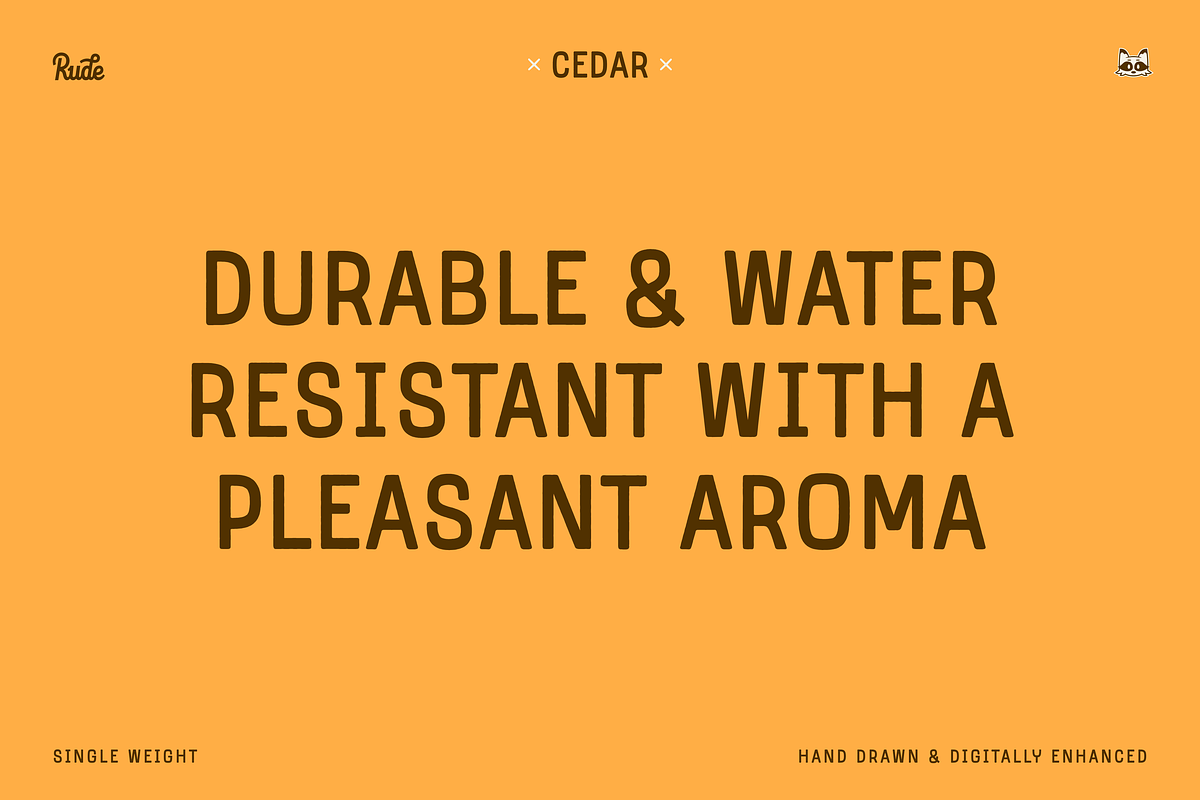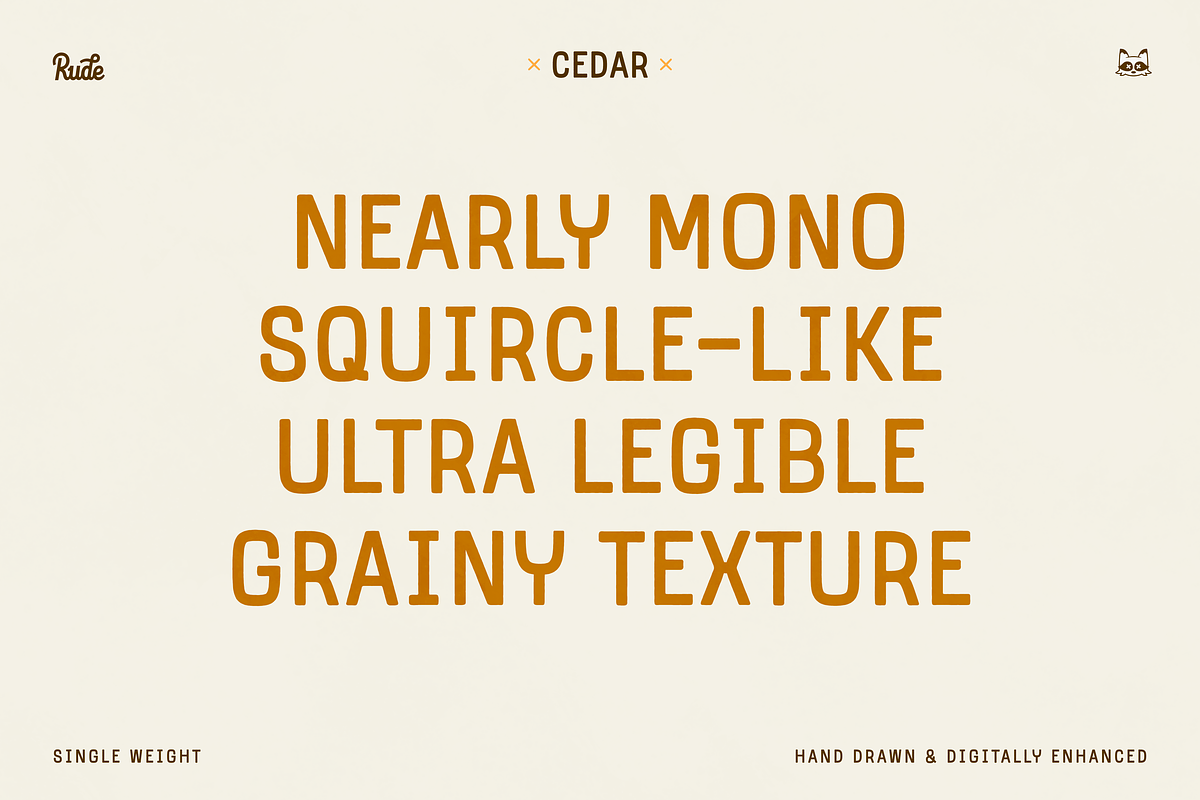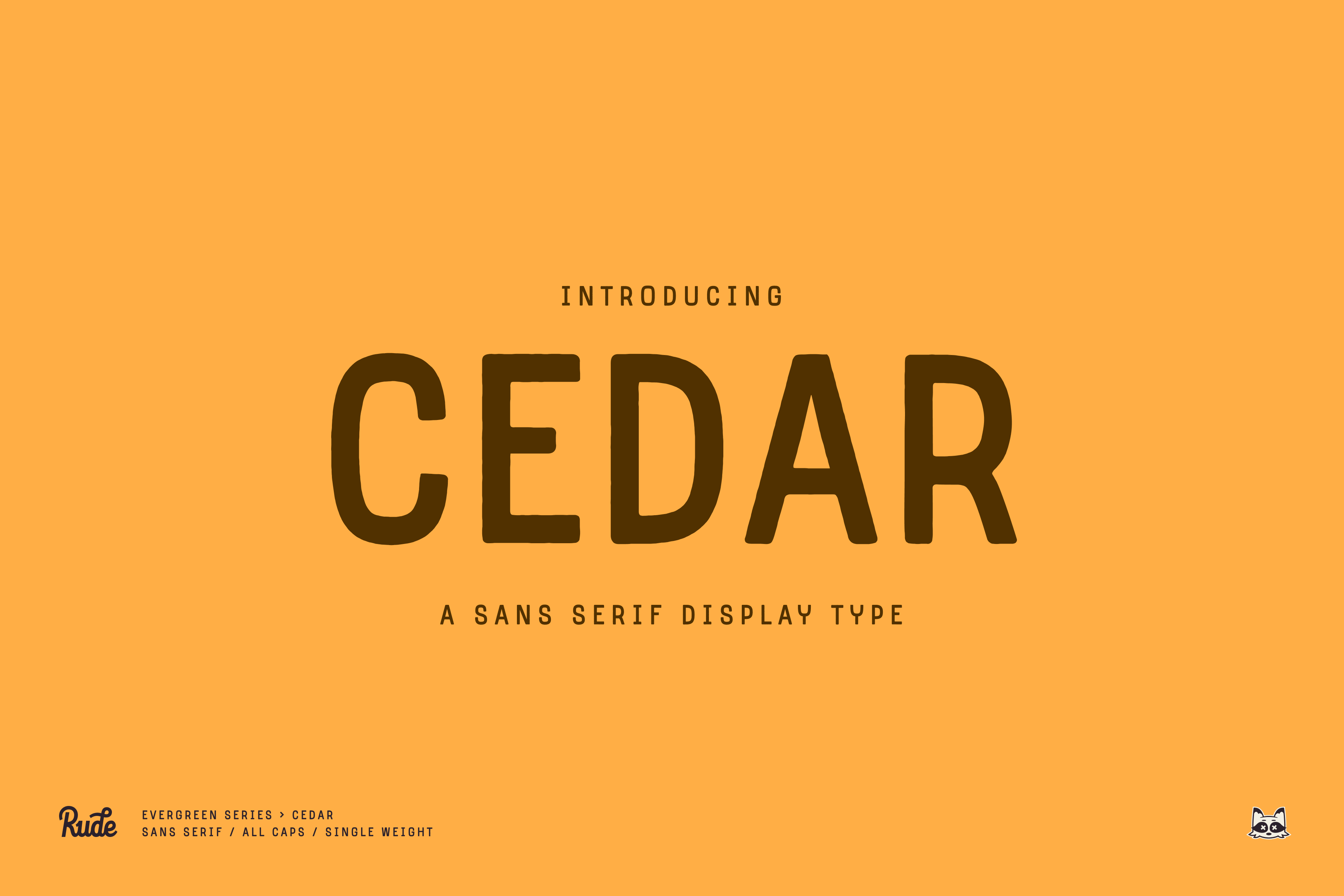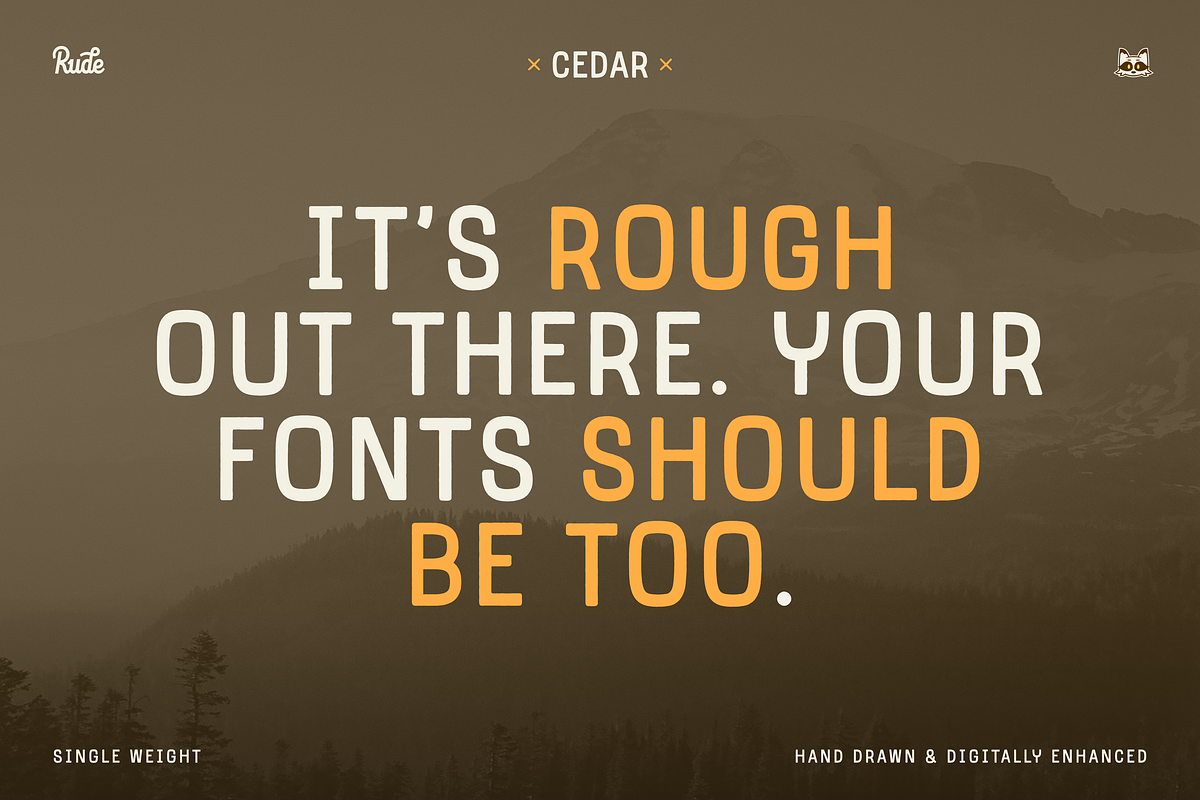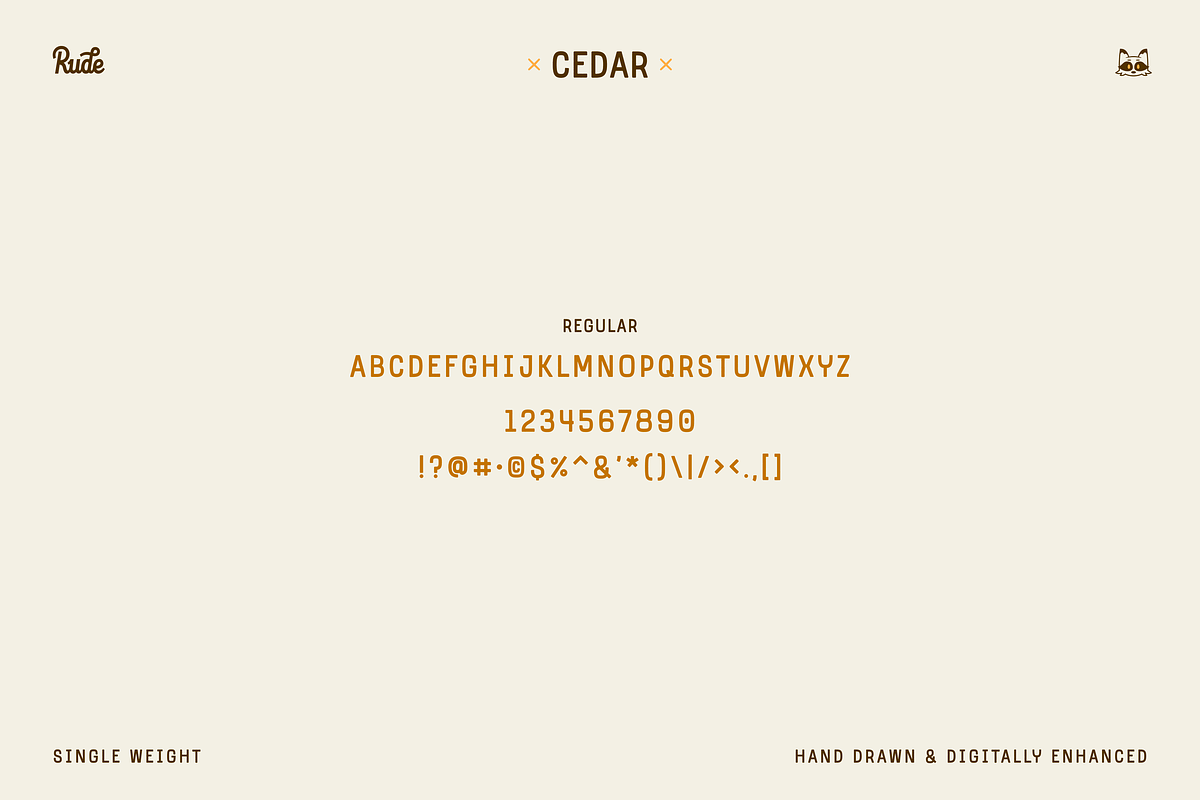
Cedar Display Font
A textured, soft, mono-styled, display typeface drawn by hand. This font is designed to be extra legible and clear with rounded rectangular letterforms.
- Single Weight
- All Caps
- Standard Characters & basic special characters
- Tons of charm!